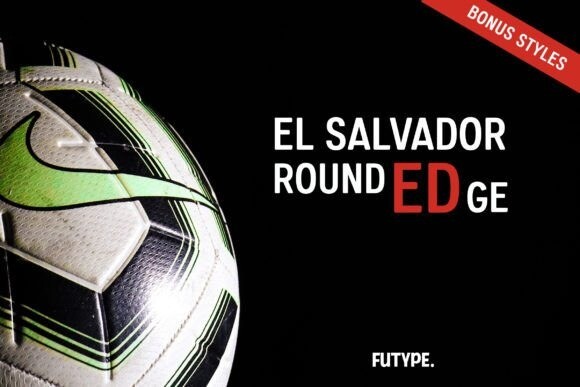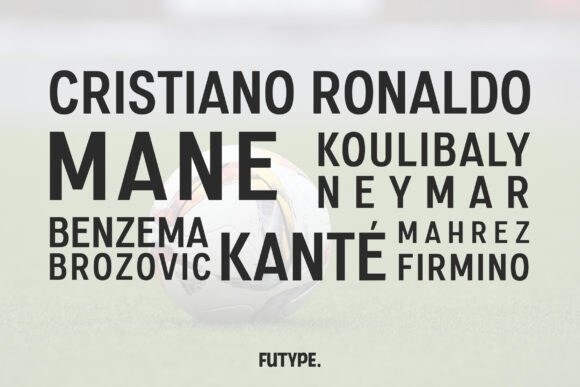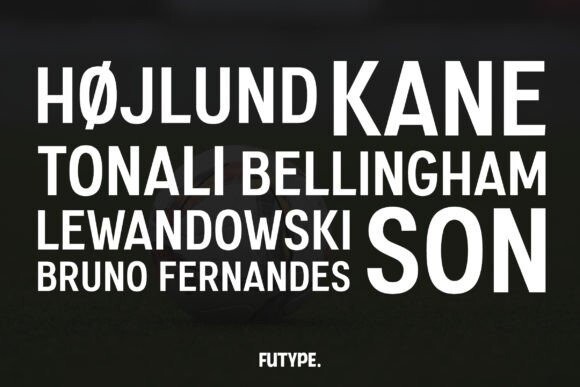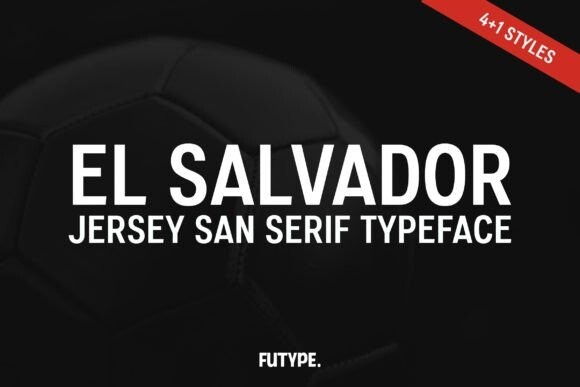
El Salvador Font
El Salvador Font is a classic sans-serif display font. Inspired by imperfect grotesque letters on movie theater programs from the early 1900s. Even though is made for sports, with the San serif style as a base El Salvador is also good for other purposes.